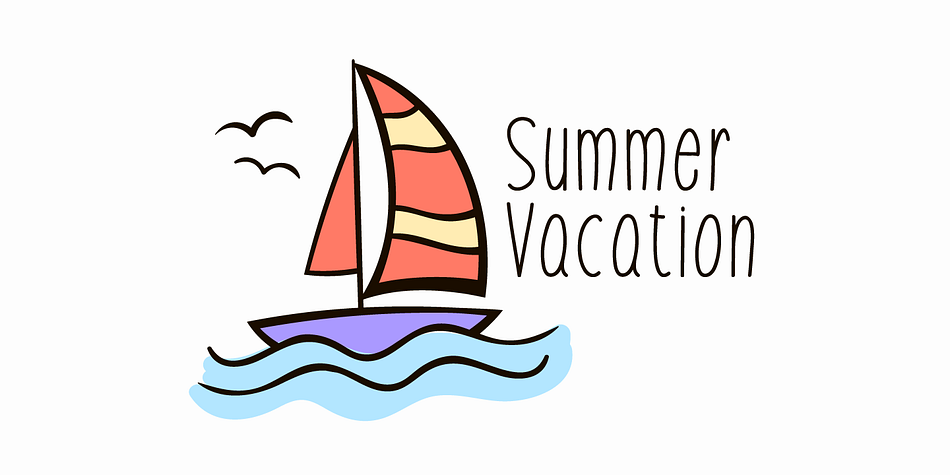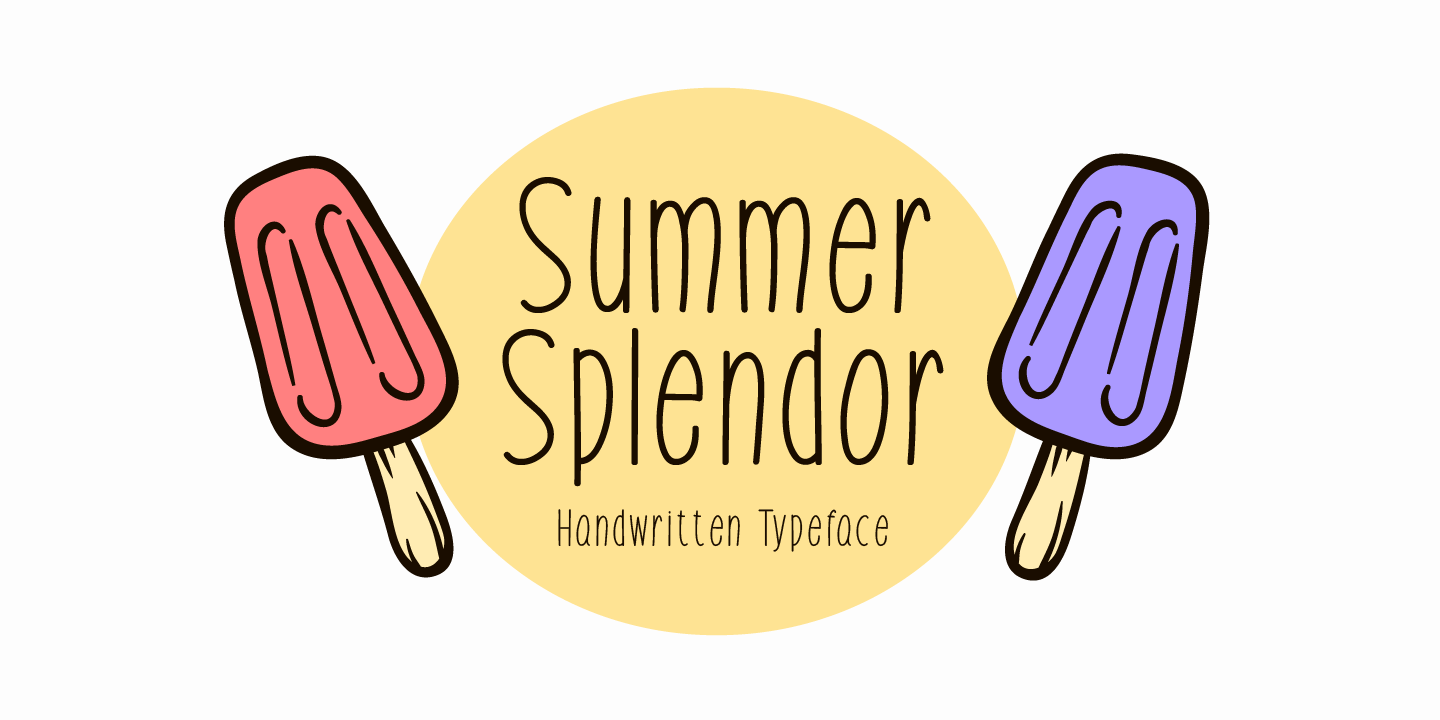
Designed by Md. Shohail Bhuiyan, Summer Splendor is a hand drawn font family published by Seemly Fonts.
Summer Splendor is a brand new handwritten font. Summer Splendor is perfectly suited for stationery, logos, t-shirt, paper, print design, website header, photo frame, flyer, music cover, poster, image slider, and much more.